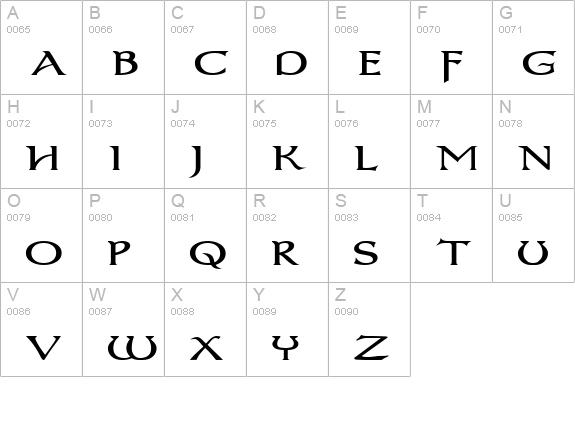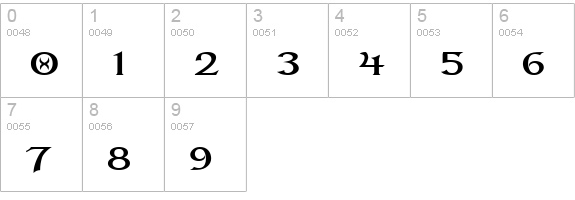
Dumbledor 3 Wide is a distinctive, extended-width variant in the Dumbledor typeface family \xE2\x80\x94 well suited to design and typography projects.
Dumbledor 3 Wide font is a bold and eye-catching display typeface that commands attention with its strong, wide letterforms. With a touch of whimsy and a dash of elegance, this font is perfect for making a statement in your designs. Whether you're creating posters, headlines, or branding materials, Dumbledor 3 Wide will add a touch of sophistication and flair to your projects. The best part? Dumbledor 3 Wide font is available for free download at FontsMarket.com. This means you can easily add this versatile and striking typeface to your font collection without breaking the bank. Don't miss out on the opportunity to enhance your designs with the unique charm of Dumbledor 3 Wide font. Download it today and let your creativity soar!